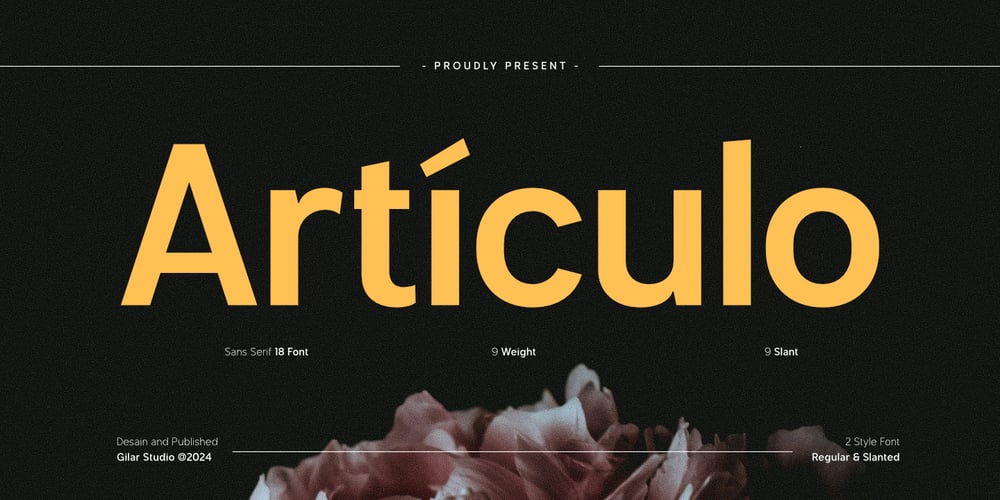
Articulo Font Family was designed by Gumilar Pratama Adiatna and published by Gilar Studio. Articulo contains 18 styles and family package options. Articulo fonts stands as a formidable grotesk font family. Designed in 2024 by Gilar Studio ,Articulo is a refined geometric sans font family, building upon the legacy of the Articulo font family with a fresh retouch. Infusing elements of both classic and humanistic styles, Articulo strikes a harmonious balance between geometric precision and timeless elegance. With 18 styles ranging from thin to black, each accompanied by matching obliques and comprehensive Latin character support, Articulo offers designers a versatile toolkit to bring their creative visions to life.Articulo is an excellent choice for designers seeking a typeface that effortlessly bridges the gap between neutrality and distinctive character, between industrial and humanist nuance. From impactful displays to intricate layouts, Articulo’s adaptability shines through, making a bold statement and establishing its position as a reliable companion for a wide spectrum of creative applications.Articulo also Suitable for Logo, greeting cards, quotes, posters, branding, name card, stationary, design title, blog header, art quote, typography, art, modern envelope lettering or book design, happening style like handdrawn design or watercolor design theme, craft design, any DIY project, book title, or any purpose to make your art/design project look pretty and trendy.